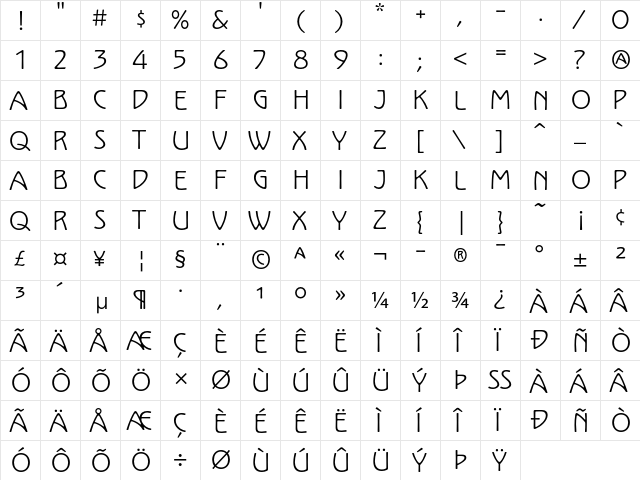
Kolo LP Regular Font Preview
Kolo LP Regular
Kolo LP Regular Font Details
Design Context for Kolo LP Typeface
Kolo LP takes a measured approach to typography — its balanced proportions and neutral character make it a reliable workhorse for both digital and print work.
Pro Tip: Use Kolo LP in both headline and body roles to test its range before committing to a single application.